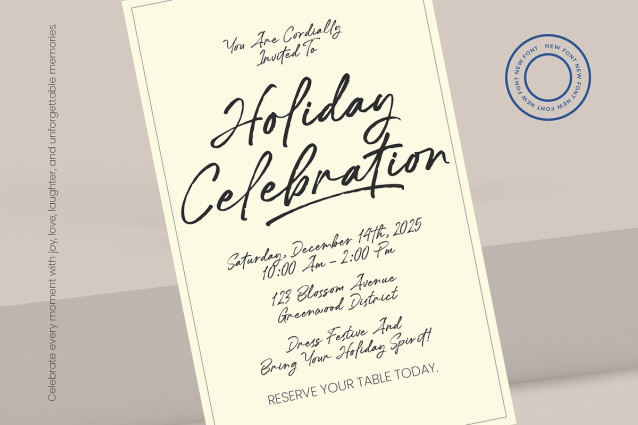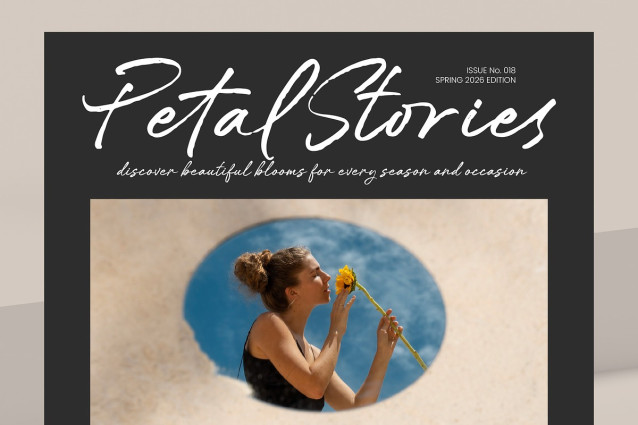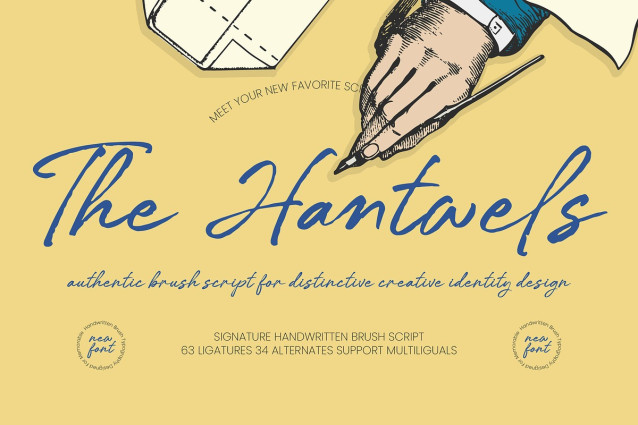
The Hantwels Font
The Hantwels Font is perfect for sophisticated packaging, editorial design, and bespoke wedding invitations where a personal touch is paramount. Whether applied to social media graphics or premium product labels, this font ensures your brand maintains a refined aesthetic that resonates with discerning audiences.
Empower your brand to speak to a worldwide audience with comprehensive technical features. With its extensive multilingual support, The Hantwels – Signature Handwritten Brush Script adapts seamlessly across global markets, making it incredibly versatile for international projects. Boasting 63 custom ligatures and 34 unique alternates, this script provides the typographic flexibility needed to create truly bespoke layouts that never feel repetitive or generic.
Secure a timeless aesthetic that bridges the gap between classic brushwork and modern typography. Investing in The Hantwels – Signature Handwritten Brush Script means choosing a professional-grade tool that delivers a premium finish every time. Enhance your commercial portfolio today with a typeface that embodies creative excellence and artistic sophistication across all digital and print mediums.